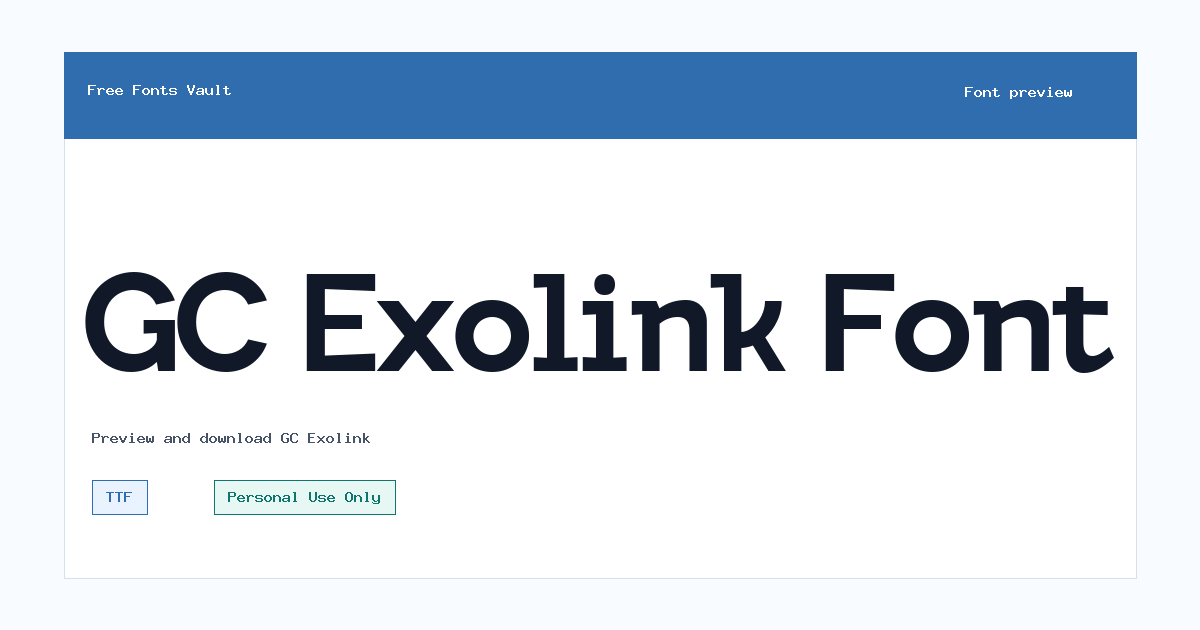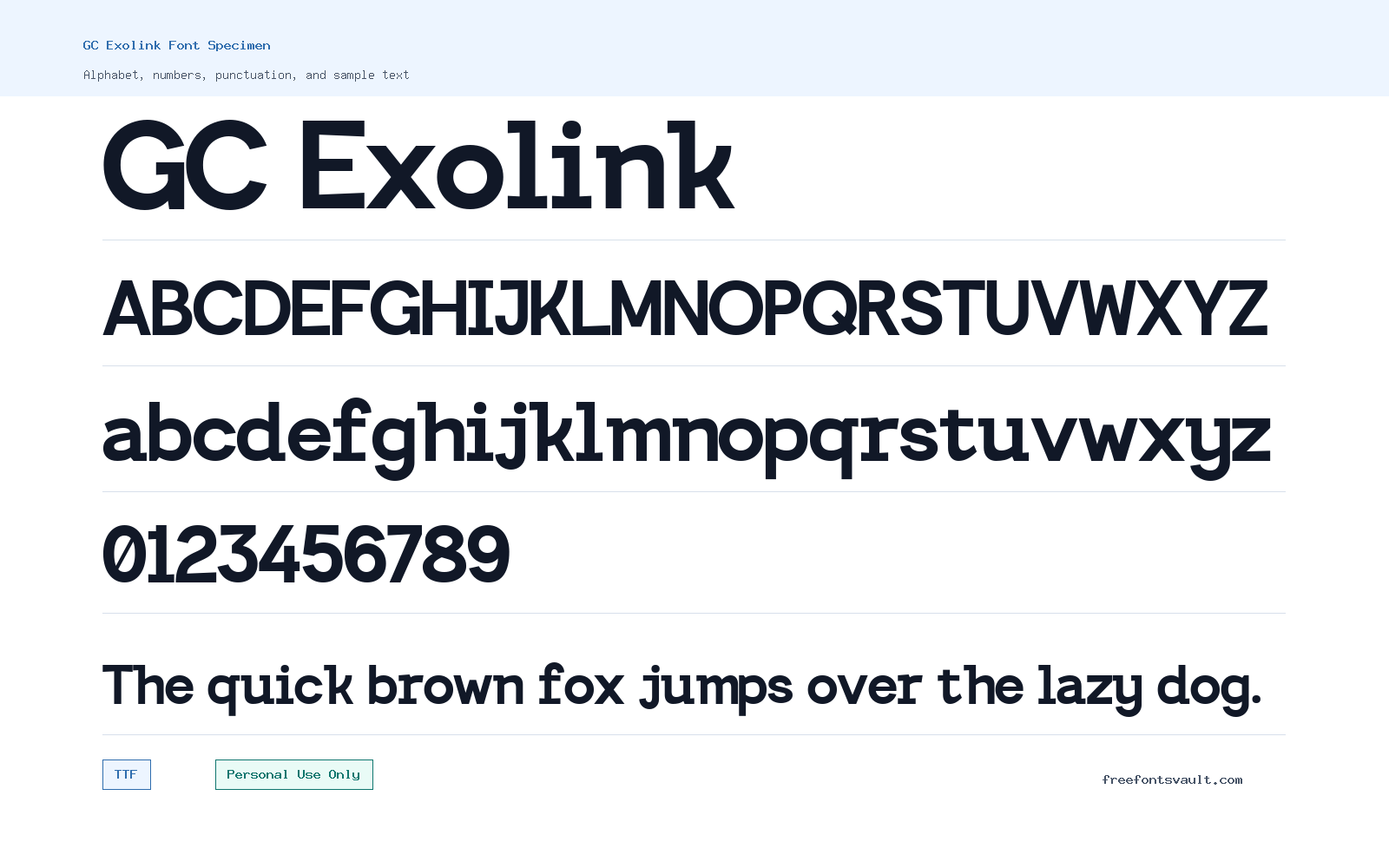
GC Exolink
- Designer Zainaldi Ibrahim of Glyphonic
GC Exolink font.
GC Exolink is a sans serif demo font for personal-use projects. It is a good font to test when you need a stronger display style for short text, headings, and visual experiments.
About GC Exolink Font
GC Exolink is credited to Zainaldi Ibrahim of Glyphonic and comes as a TTF font file. The included variant is marked as regular, with a normal style and 700 weight, so it is best approached as a bold display option rather than a quiet reading font. Use the preview tool to check how its letter shapes behave in your own words before downloading, especially if you plan to use tight spacing, all caps, or mixed numbers and letters.
- Normal style with a 700 font weight, suitable for stronger headline testing
- Personal posters, thumbnails, and social media graphics
- Short headings, logo mockups, title treatments, and non-commercial design drafts
Try the preview with the exact words you plan to use. Check uppercase letters, spacing, punctuation, and numbers before download. Keep it to short text if readability drops at smaller sizes. Since the listed style is bold, give it enough surrounding space and avoid using it for dense paragraphs or crowded button labels.
What kind of projects is GC Exolink best for?
Use it for personal design tests, short headings, posters, mockups, and social graphics. It is better to preview longer text first, because the included weight is bold.